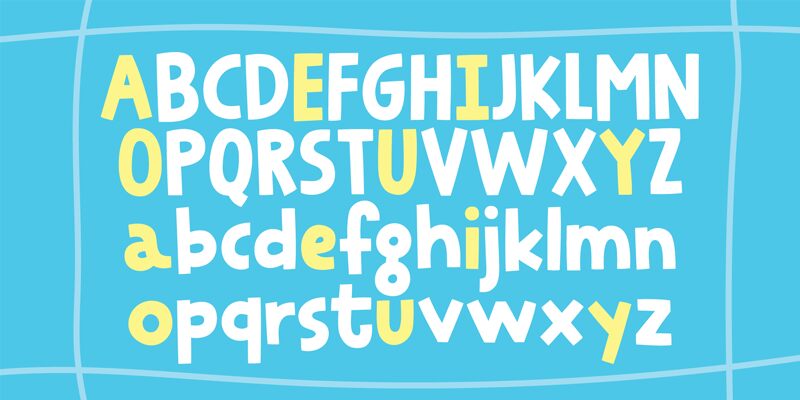
Lost Jacket DEMO
Lost Jacket font by Pizzadude is a cartoon display font with a chunky and friendly design. Its casual, retro style is inspired by the 60s aesthetic and an organic flow. The font swiftly captures attention with its originality as it adds an interesting visual effect to texts.
This free three-dimensional display typeface can be used for website backgrounds, Instagram posts, social media profiles, movies cover art, book covers, marketing content, advertisements, business cards and publications without sacrificing any ongoing project originality.